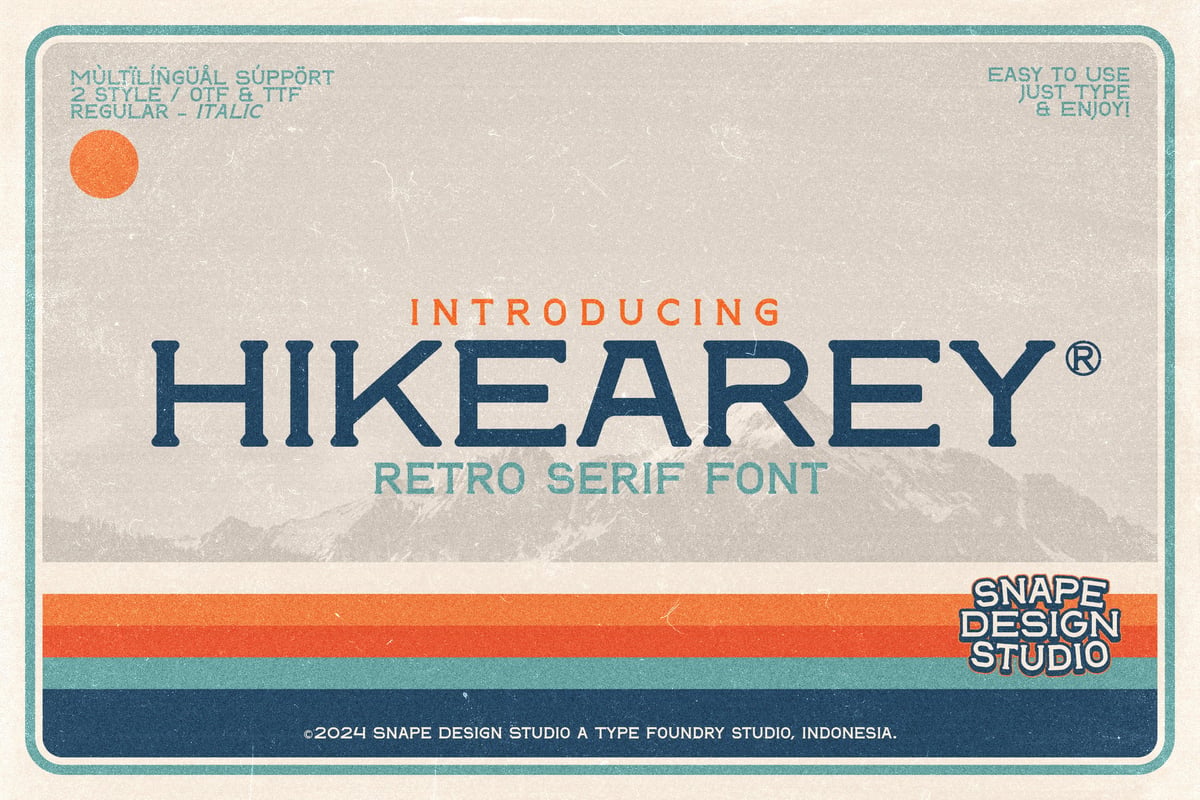
Hikearey - Retro Serif Font
Transform your designs with Hikearey's timeless vintage charm and classic mid-century elegance. This retro serif font captures the essence of vintage allure through its carefully crafted classic design. Drawing inspiration from mid-century typography, Hikearey infuses any project with nostalgic character while maintaining timeless sophistication. The typeface seamlessly bridges past and present, making it ideal for bringing vintage authenticity to contemporary designs. FEATURES: Uppercase, Lower...